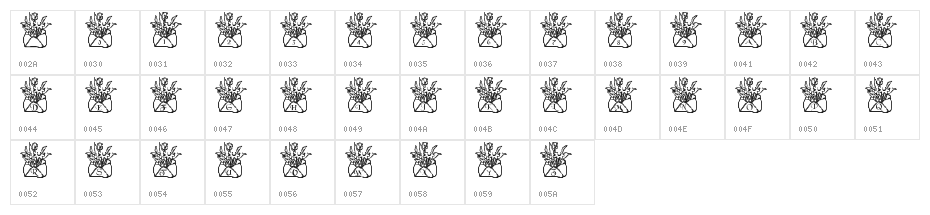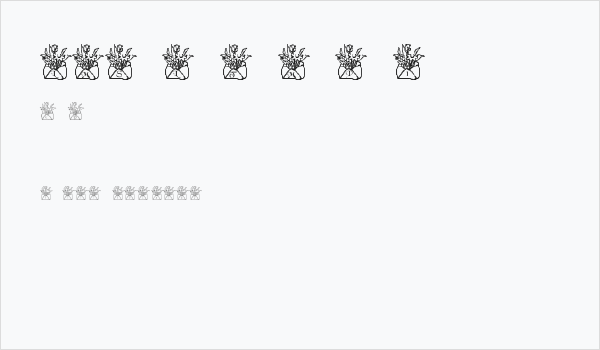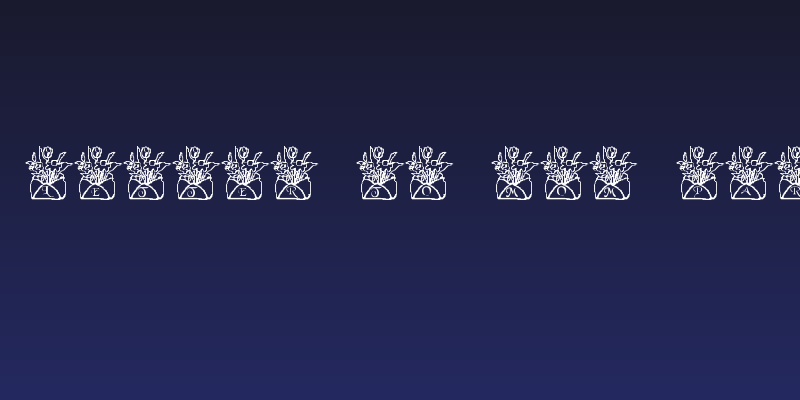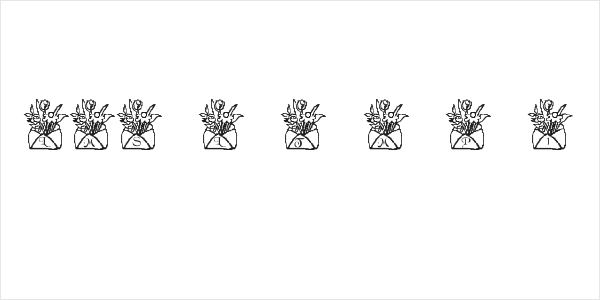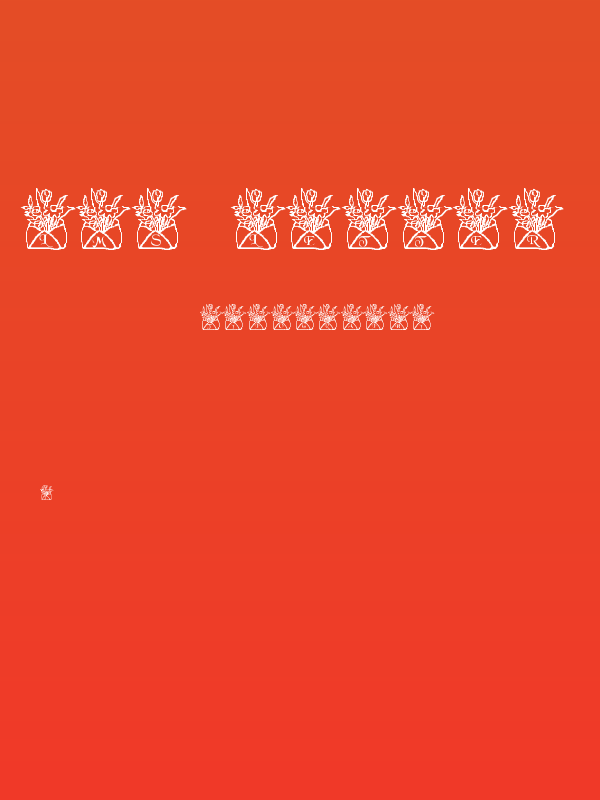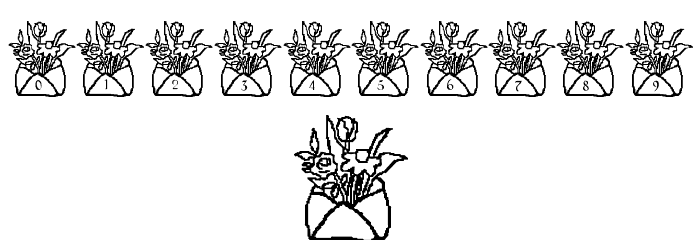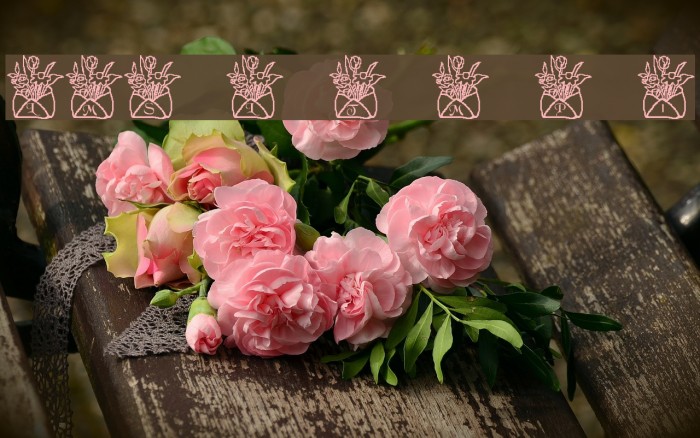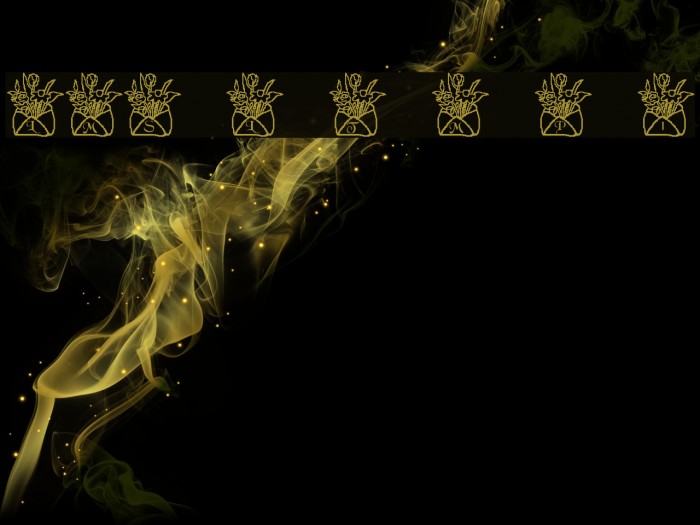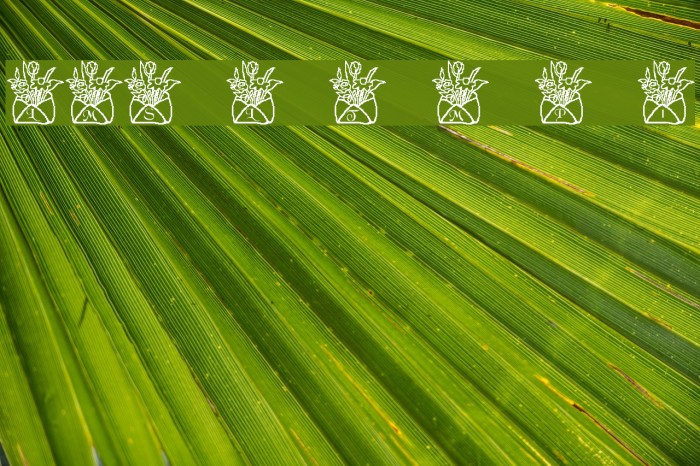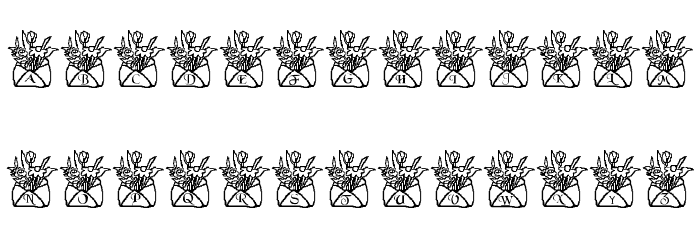
LMS Letter To Mom Part 1 Font
This decorative font features each character encased within a floral-themed design, where letters and numbers are integrated into a bouquet-like arrangement. The characters are stylized to blend seamlessly with the floral elements, creating a whimsical and artistic appearance. The design is intricate, with each letter and number appearing as if they are part of a flower arrangement, making it ideal for creative and decorative purposes. The overall look is playful and unique, capturing attention with its detailed and ornate style.
| Proposed Projects | Ideal for greeting cards, invitations, scrapbooking, and decorative posters. |